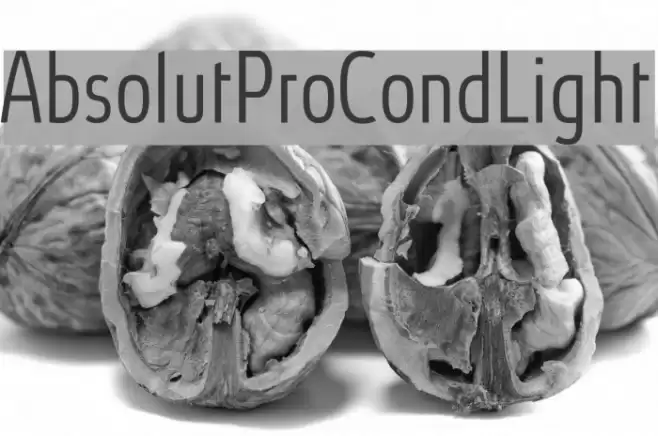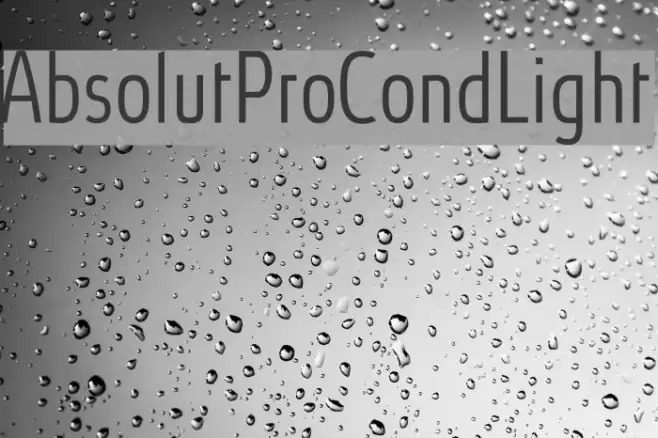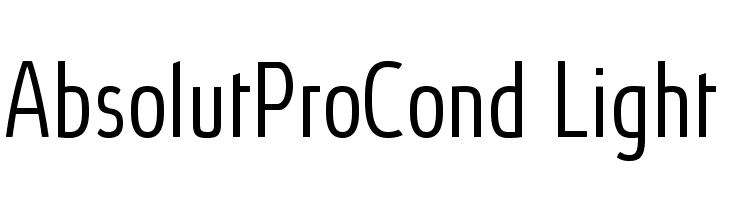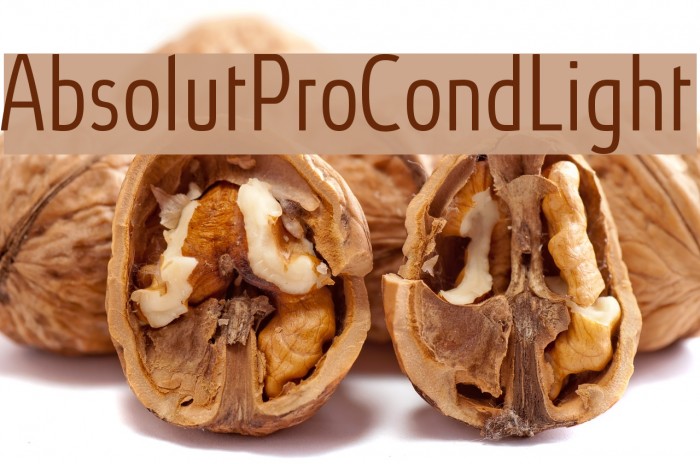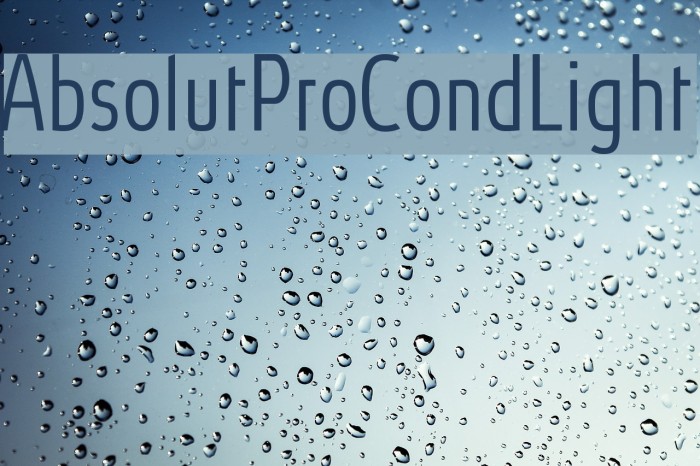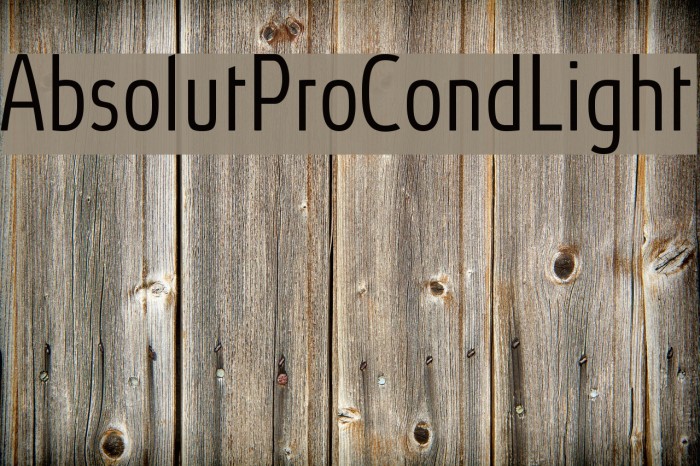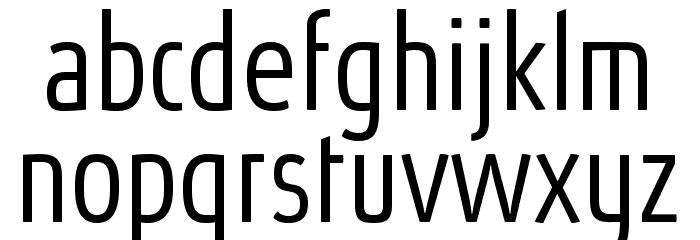
AbsolutProCond-Light Font
AbsolutProCond-Light Description
This font features a clean and modern sans-serif design with a condensed structure, making it ideal for space-saving applications. The characters are uniformly thin, providing a light and airy appearance. The vertical strokes are slightly taller than average, contributing to its sleek and elongated look. The font maintains a consistent stroke width throughout, ensuring a harmonious and balanced visual effect. Its simplicity and clarity make it highly legible, even at smaller sizes. The overall aesthetic is minimalistic, with a focus on functionality and readability.
A modern, condensed sans-serif font with a light and airy appearance from Uncategorized fonts.
- Proposed Projects: Ideal for use in headlines, posters, and branding materials where space is limited and a modern look is desired.
- Use Case: Headlines, Branding, Posters